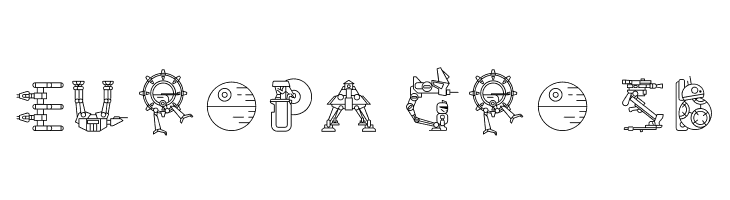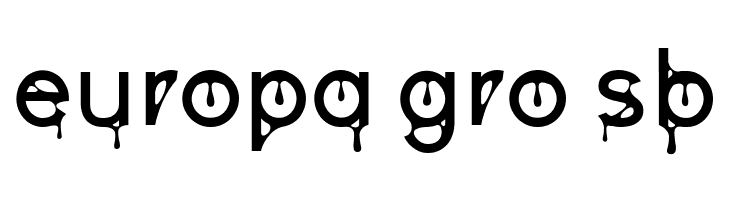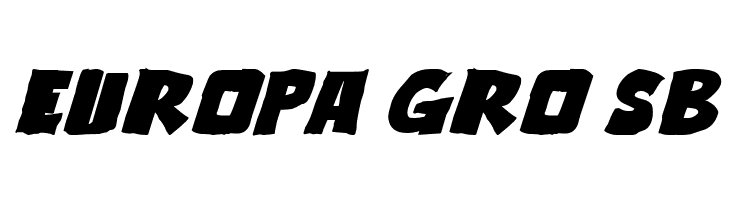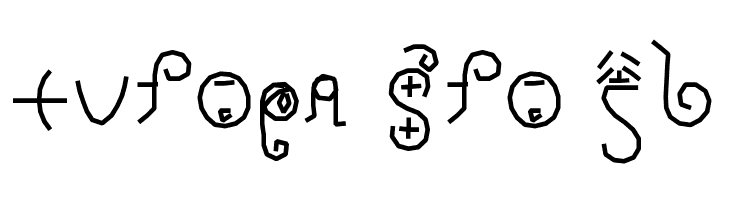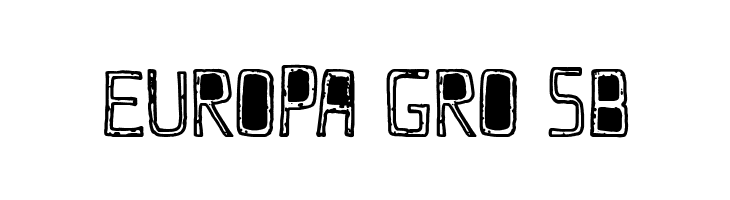
( Fonts by Afif C. Kusuma )
A decorative sci-fi themed font with intricate, futuristic designs.
( Fonts by Gooborg Studios )
A playful, decorative font with drip-like extensions and circular cutouts.
( m )
An artistic and decorative font with abstract, symbol-like characters.
A rugged, hand-drawn font with a distressed, artistic style.
( Fonts by Joseph Dawson )
A bold, italicized font with a distressed, playful style.